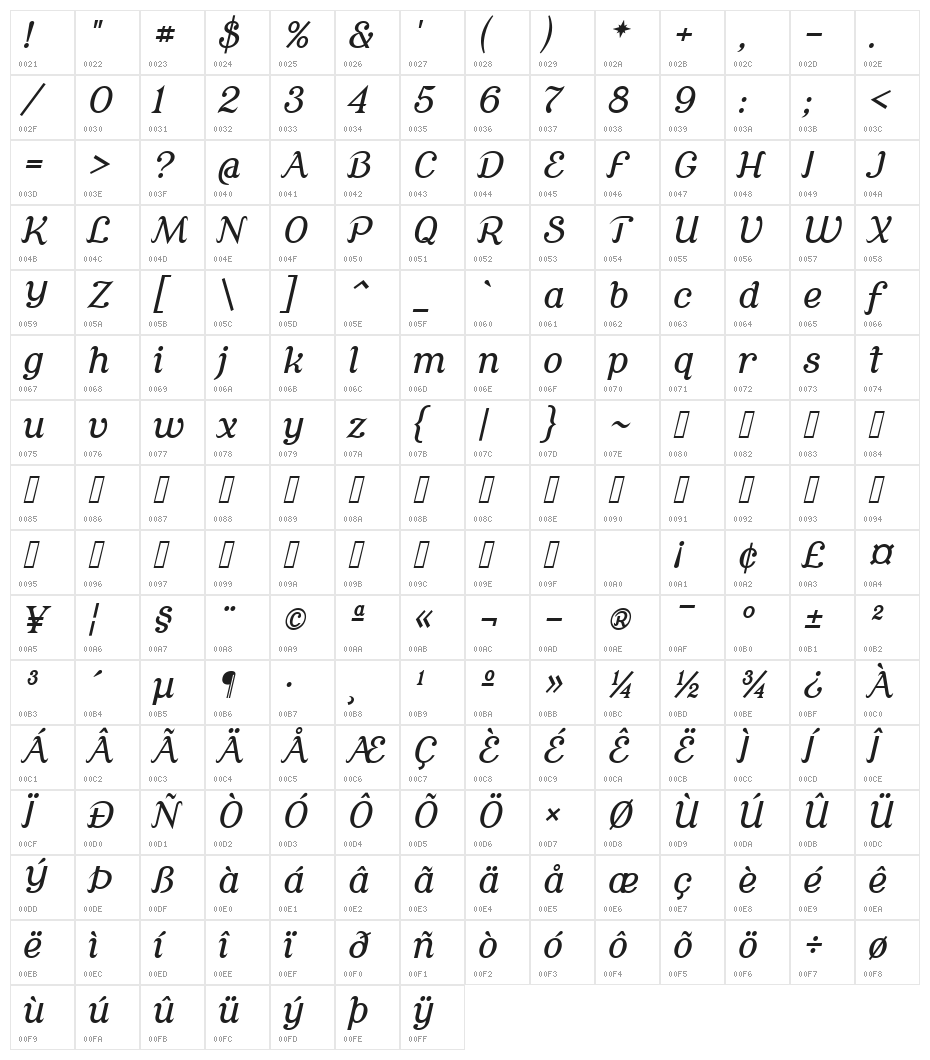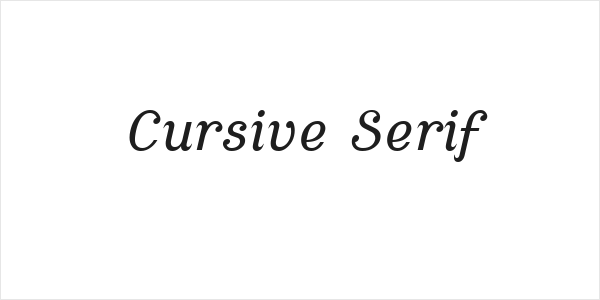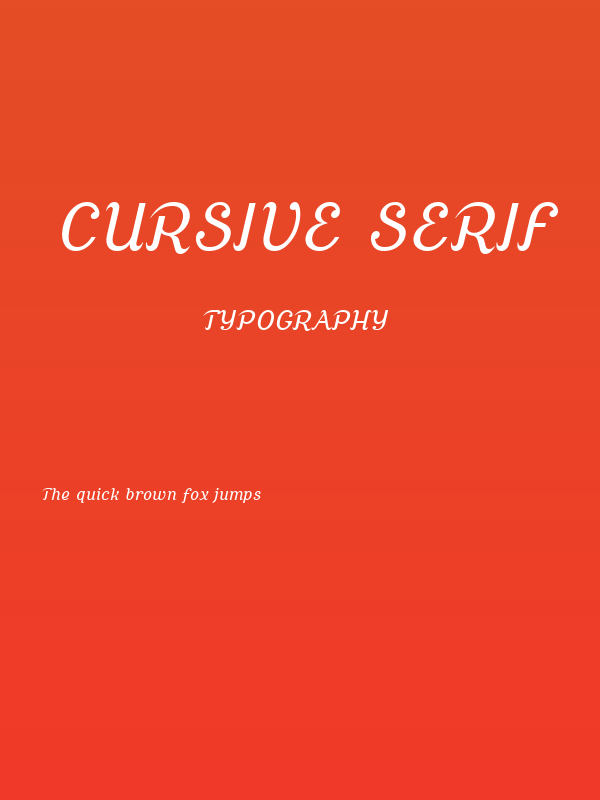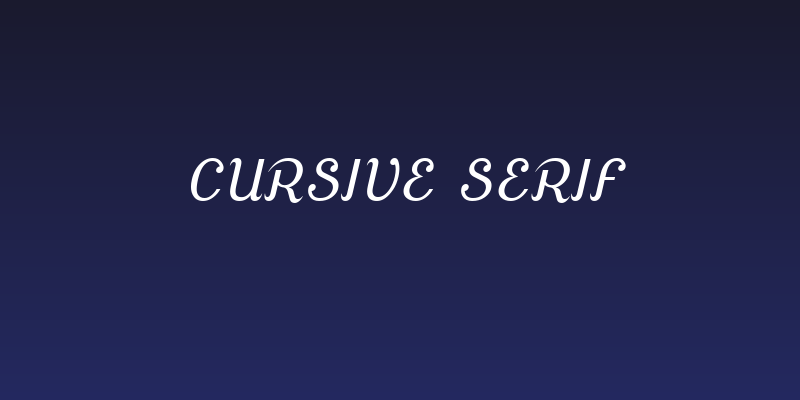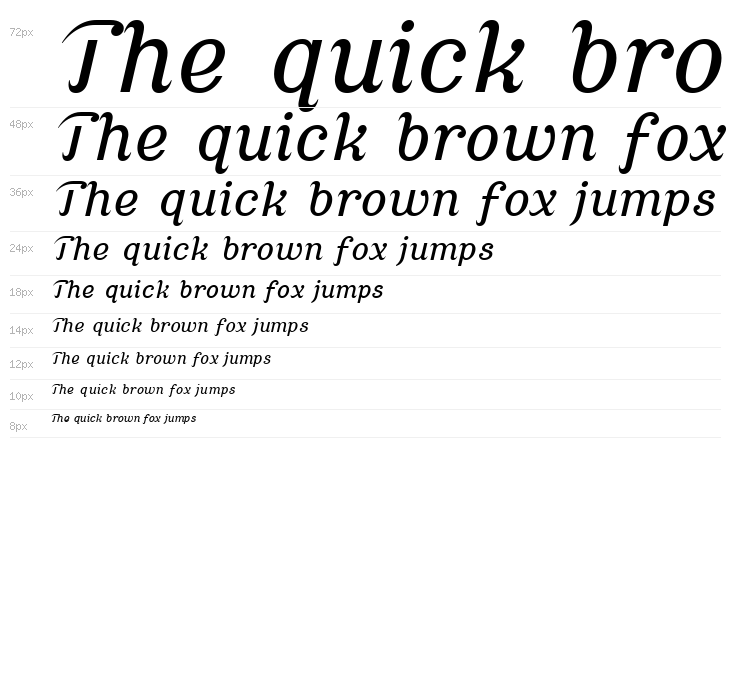
Cursive Serif Font
Cursive Serif Description
This font elegantly combines the fluidity of cursive with the structured elements of serif typefaces. The uppercase letters exhibit a graceful flow with subtle curves, while the lowercase letters maintain a consistent rhythm, enhancing readability. The numerals are distinct and well-proportioned, contributing to the font's overall balance. Special characters are thoughtfully designed, maintaining the font's cohesive style. This font's unique blend of cursive and serif elements makes it versatile for various design applications.
| Overall Style | Elegant |
| Use Case | Headlines, Invitations, Branding |
| Proposed Projects | Ideal for wedding invitations, elegant branding, book covers, and high-end product packaging. |